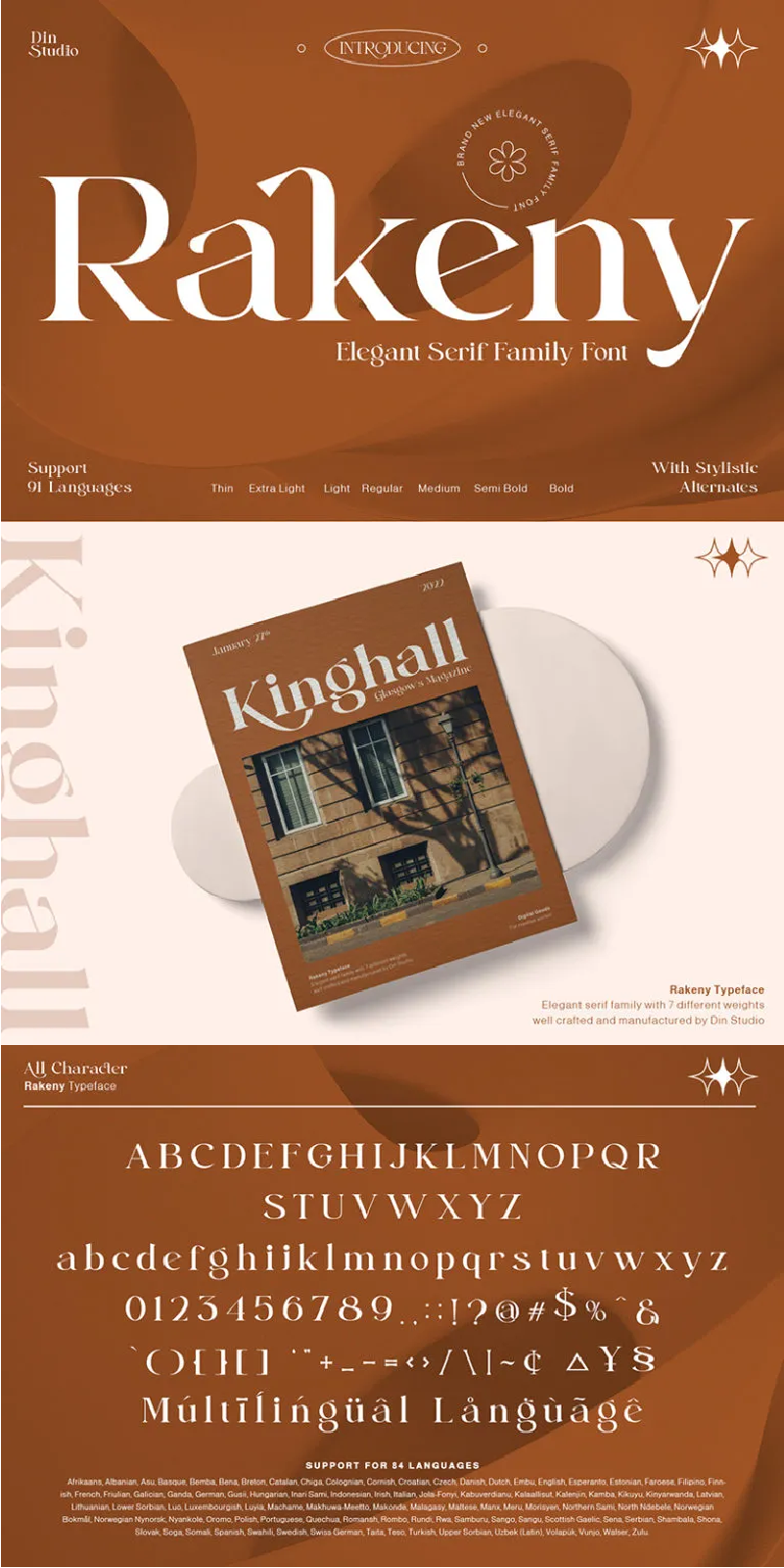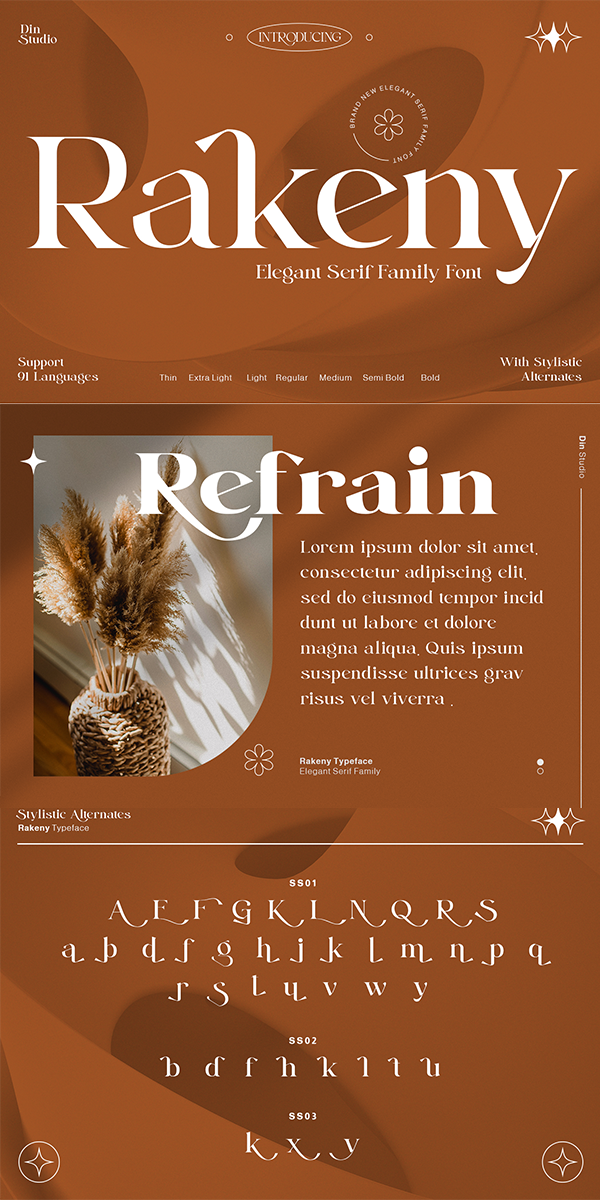
Rakeny Font
About Rakeny
Rakeny-A Serif Font Family
Rakeny is a package that will makes you feeling grateful. With this family you will get many options to maximize your designs with stylish fonts. Rakeny is a package of modern serif fonts style combines with a little bit copperplate to contemporary typeface with a dancing baseline, classic and elegant touch. This font is very suitable to be applied in various formal forms such as invitations, labels, restaurant menus, logos, fashion, make up, stationery, novels, magazines, books, greeting / wedding cards, packaging, labels or all kinds of advertising purposes.
Include 7 different weight fonts :
-Rakeny Thin
-Rakeny Extra Light
-Rakeny Light
-Rakeny Regular
-Rakeny Medium
-Rakeny Semi Bold
-Rakeny Bold